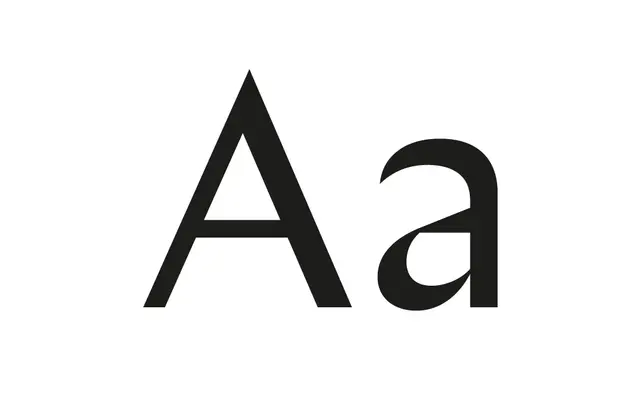
Chap
A modern contrast sans, originally drawn for the Finnish Culture Institute in New York, in six weights with italics and figures for text, titling and tables.
Chap is a modulated grotesk that pays tribute to the visibly contrasted sans serifs popular in the 1920s to 1950s, when they were widely used in advertising, architectural lettering and logotypes. It avoids direct revival, with thicks and thins that generally reference the broad-nib pen but break convention with unusual twists of stroke and stretches where calligraphy yields to geometry. Aimed at multipurpose work rather than display fashion, Chap reads cleanly in passages of text at a range of sizes, supported by six weights with italics, figure sets for text, titling and tables, and an Extended Latin character set.
Schick Toikka position Chap as a tribute to the contrasted sans tradition of the 1920s to 1950s, originally drawn for the Finnish Culture Institute in New York; thicks and thins generally reference the broad-nib pen but skirt convention with unusual twists of stroke and moments where calligraphy yields to geometry.